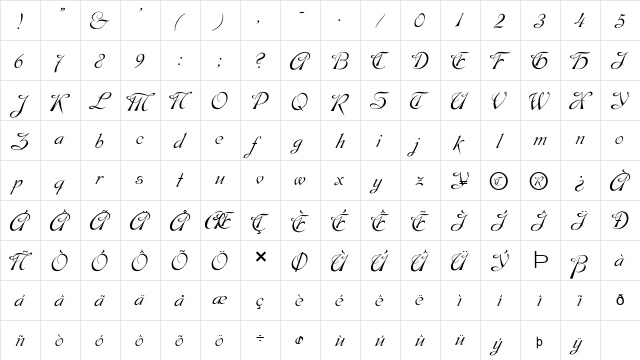
SCRIPT 9 Normal
Design Context for SCRIPT 9 Typeface
SCRIPT 9 flows with the natural rhythm of handwritten lettering, making it ideal for designs that call for warmth and personal expression.
Font Pairing: Combine SCRIPT 9 with a simple geometric sans for maximum contrast — the tension between flowing curves and clean structure is a classic typographic pairing.
Pro Tip: Pair SCRIPT 9 with a clean sans-serif for supporting text. The contrast between fluid script and geometric structure creates an elegant typographic hierarchy.